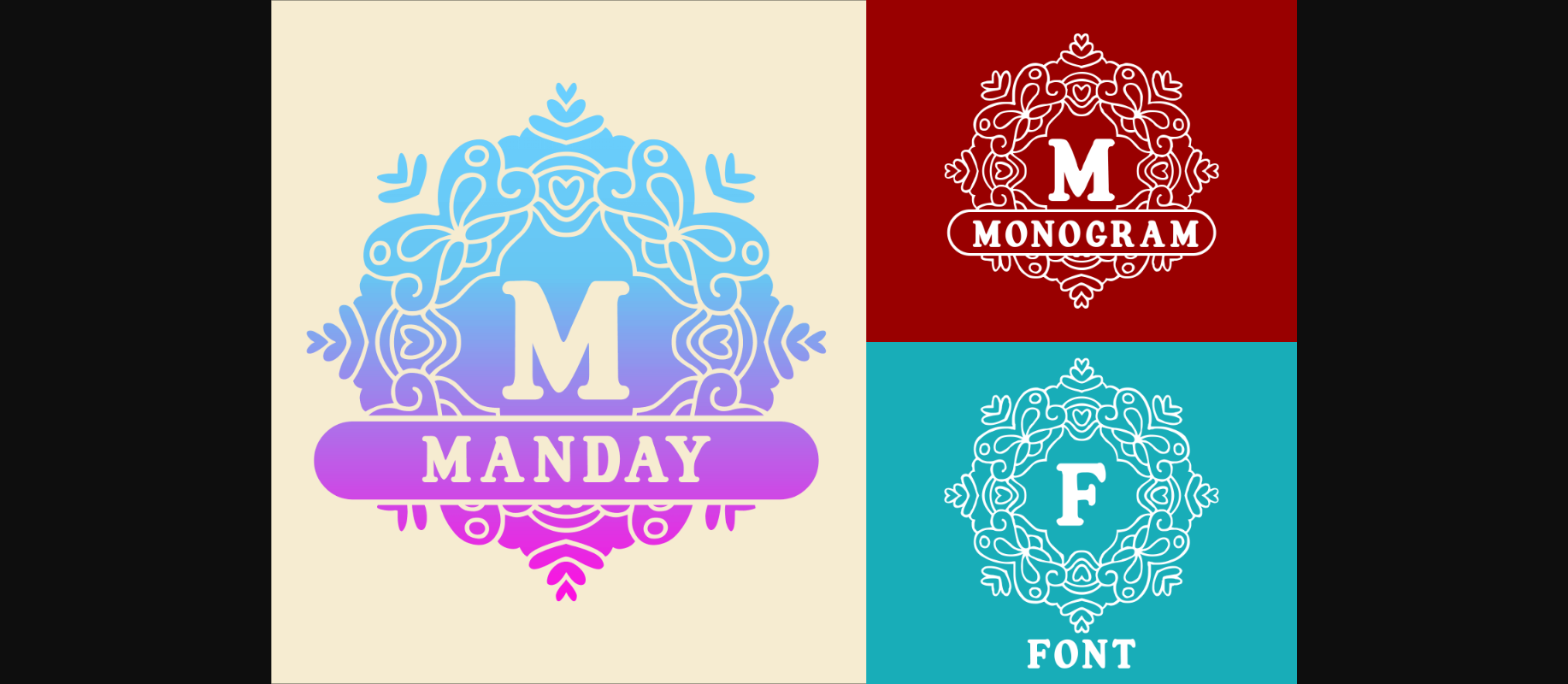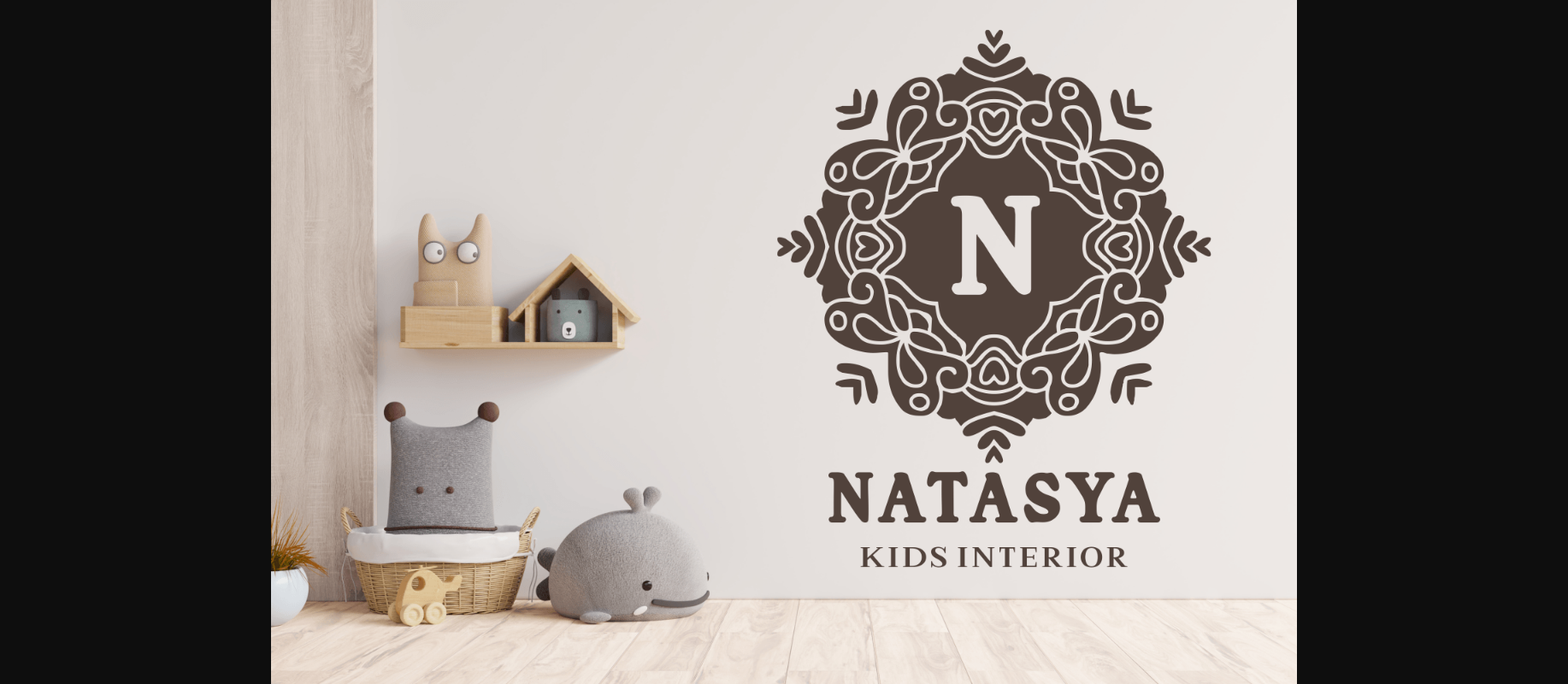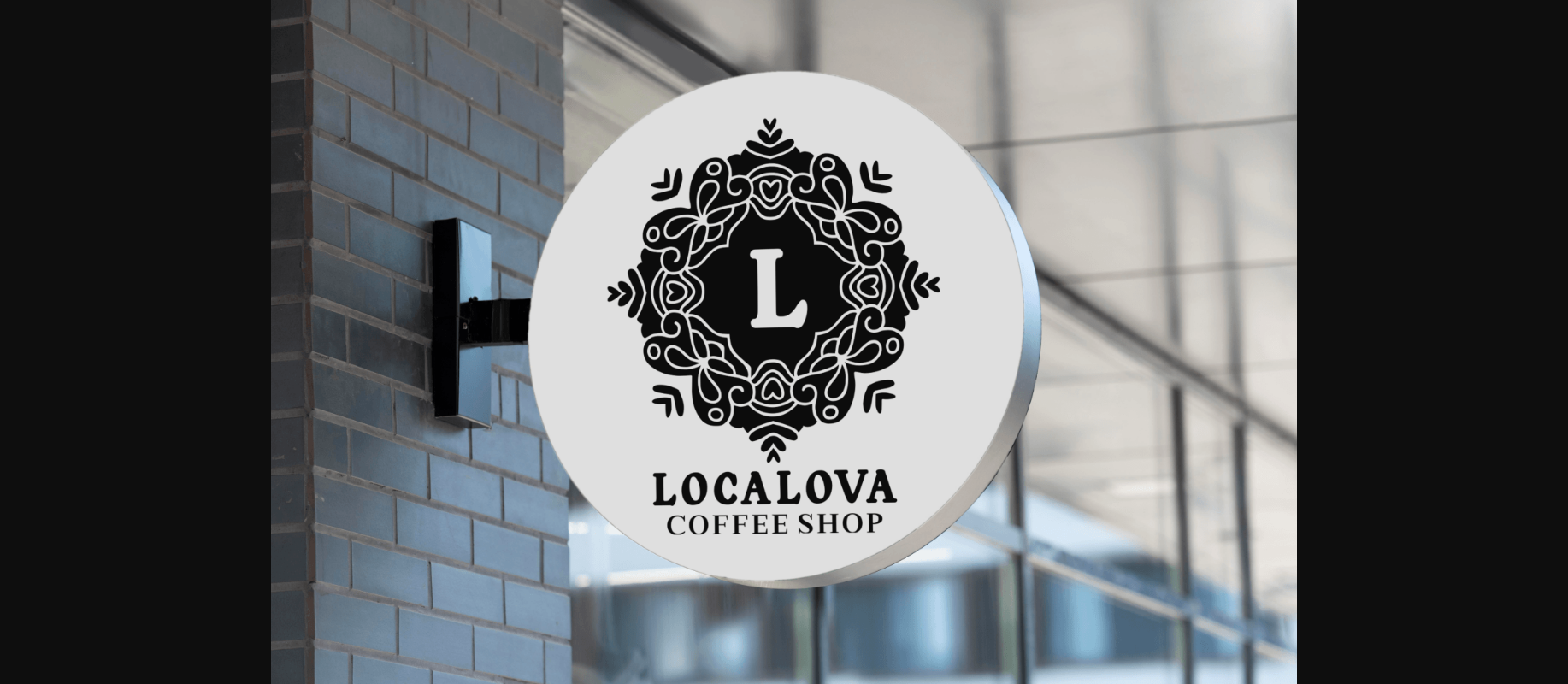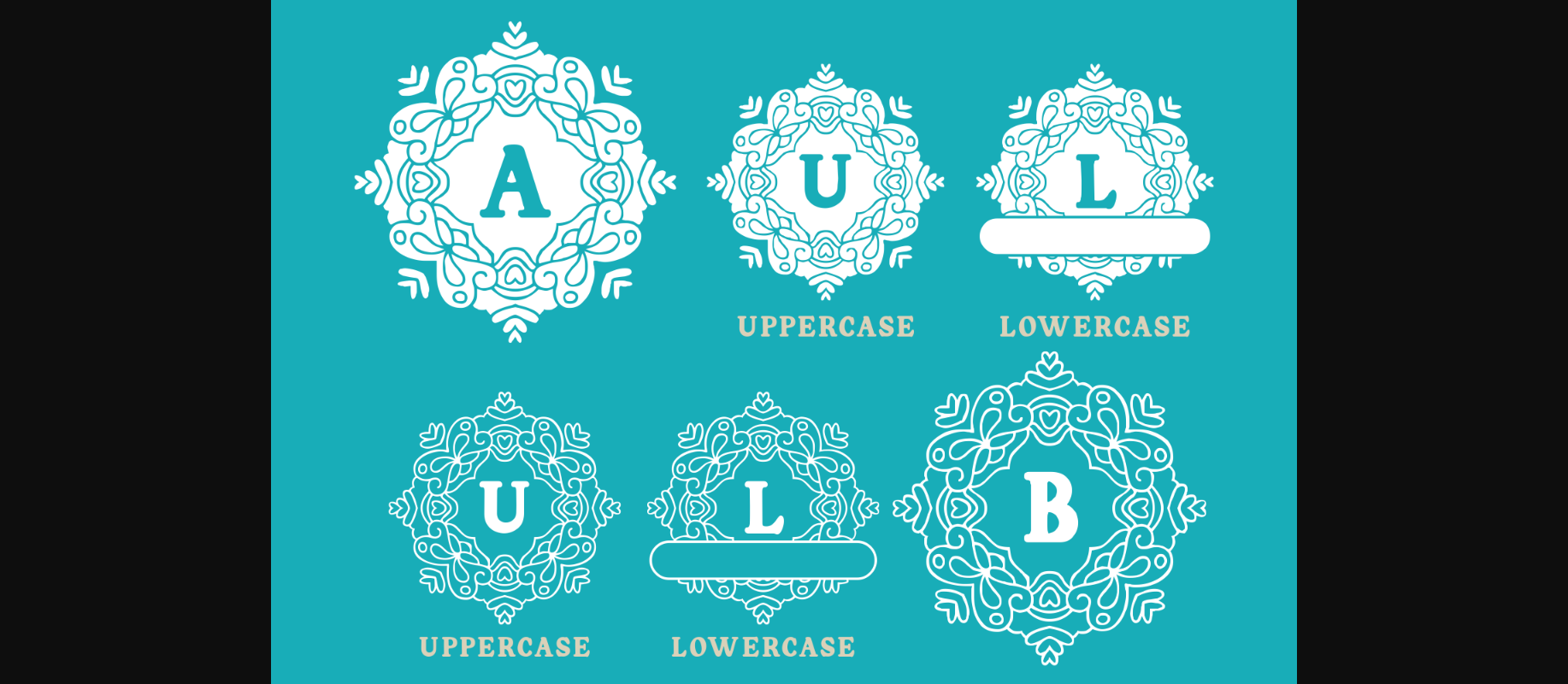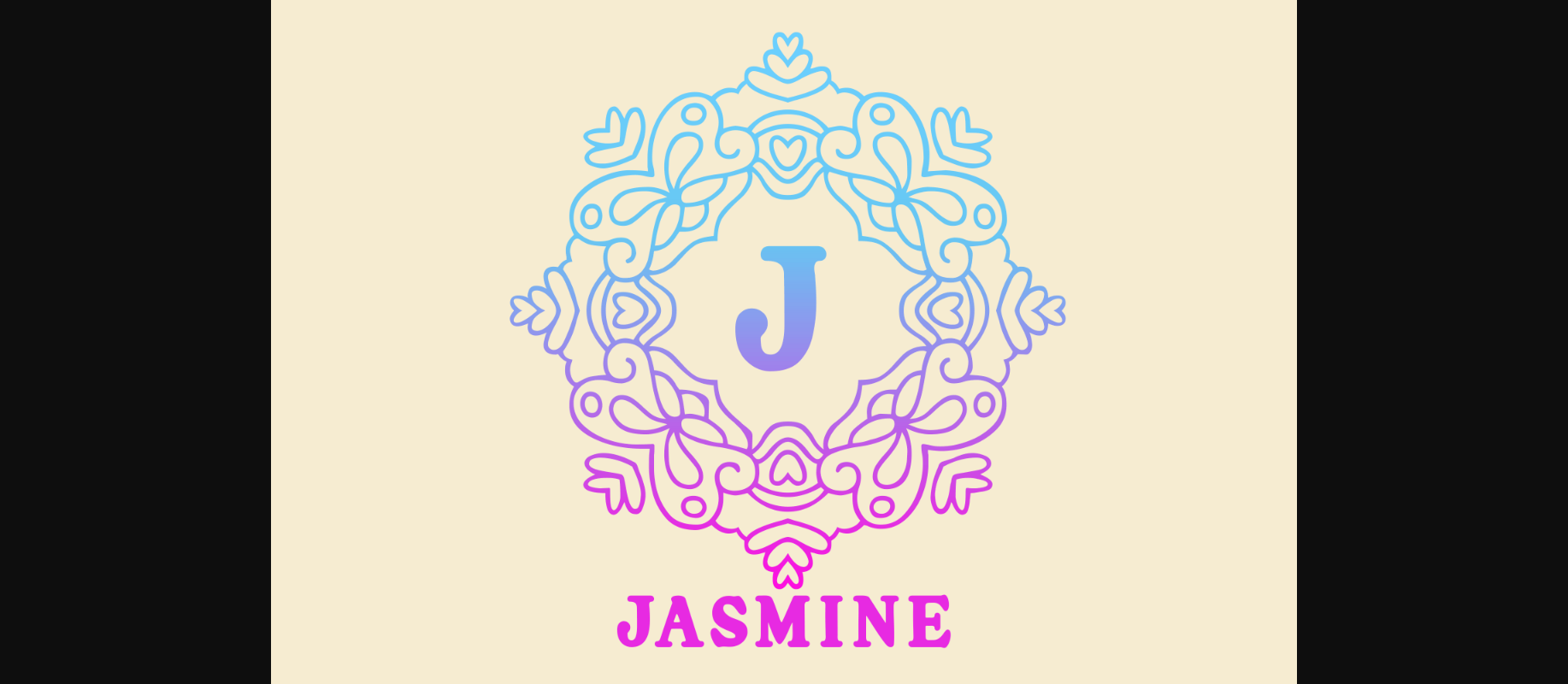
Manday Font
About Manday Font
Manday is a lovely and sophisticated monogram decorative font. Use this gorgeous font to elevate the look of any item or project!